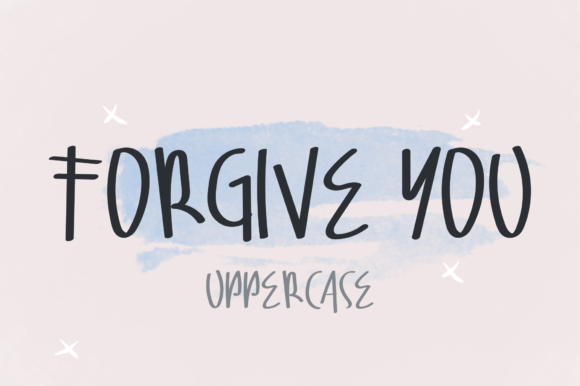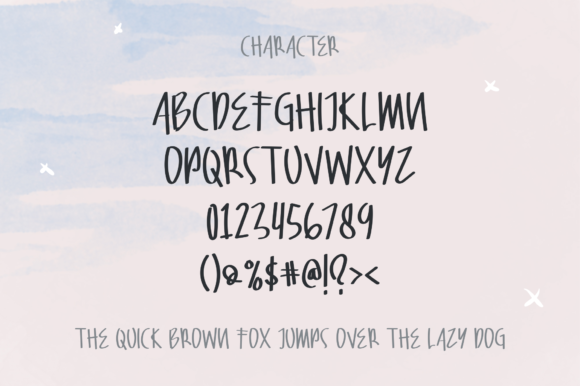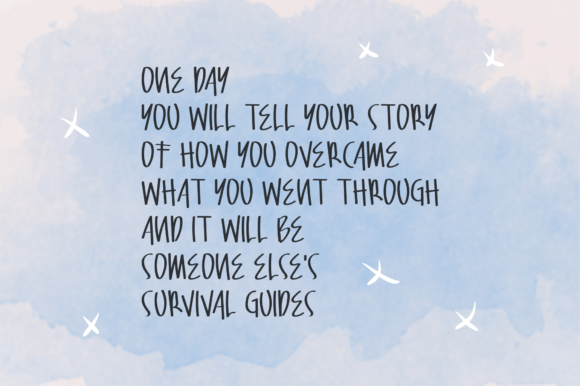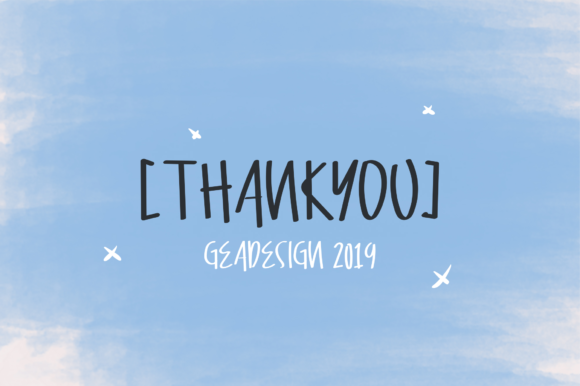
Forgive You Font
About Forgive You Font
Forgive You is a soft and friendly handwritten font with a casual twist. Get inspired by its easygoing and relaxed feel.